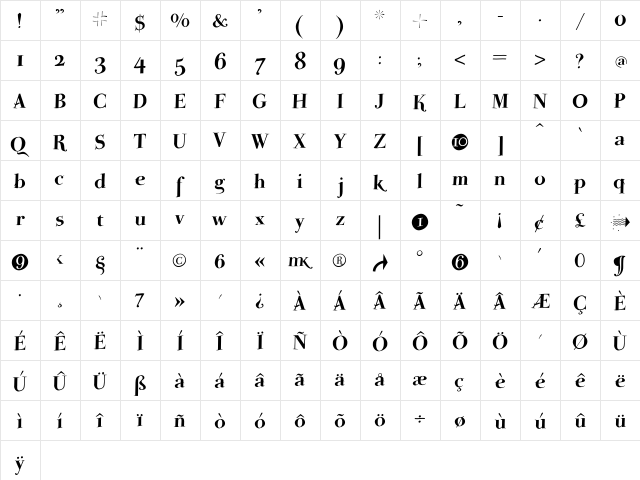
ParmaPetit-HeavySwinging Regular
Design Context for ParmaPetit-HeavySwinging Typeface
ParmaPetit-HeavySwinging offers clean, dependable letterforms without strong stylistic allegiance, making it a practical choice for designers who need flexibility.
Pro Tip: Use ParmaPetit-HeavySwinging in both headline and body roles to test its range before committing to a single application.